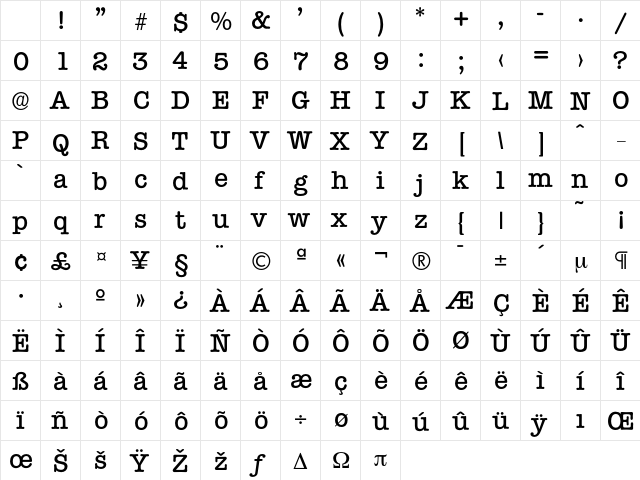
Complete Typewriter-Medium Regular glyph index. Displaying only characters natively supported by Typewriter-Medium Regular font.
Typewriter-Medium uses fixed-width spacing throughout, giving it the structured, systematic character associated with coding environments and technical documentation.
Pro Tip: Use Typewriter-Medium with slightly increased line-height for extended reading - fixed-width spacing can feel dense in longer passages without extra breathing room.